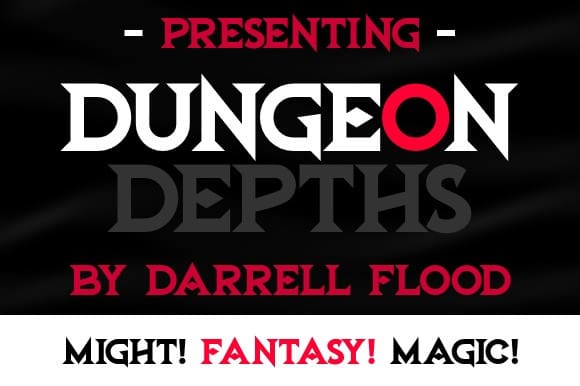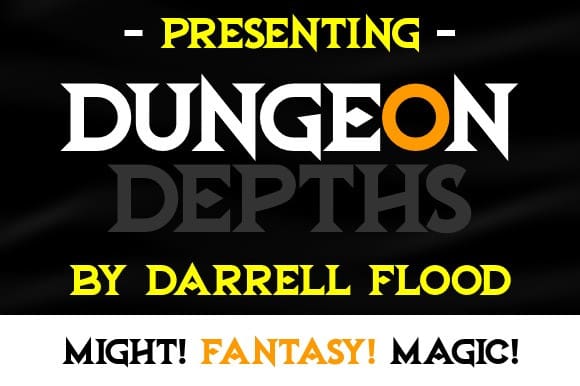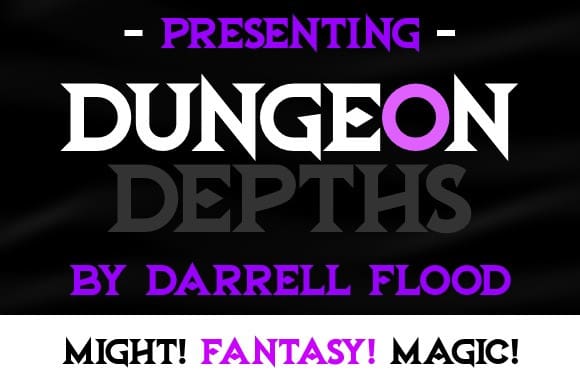
Dungeon Depths Font
Dungeon Depths Font, An old school fantasy style font in a sharp angular style. Perfect for role playing adventures, dungeon explorations, and general fiction use!